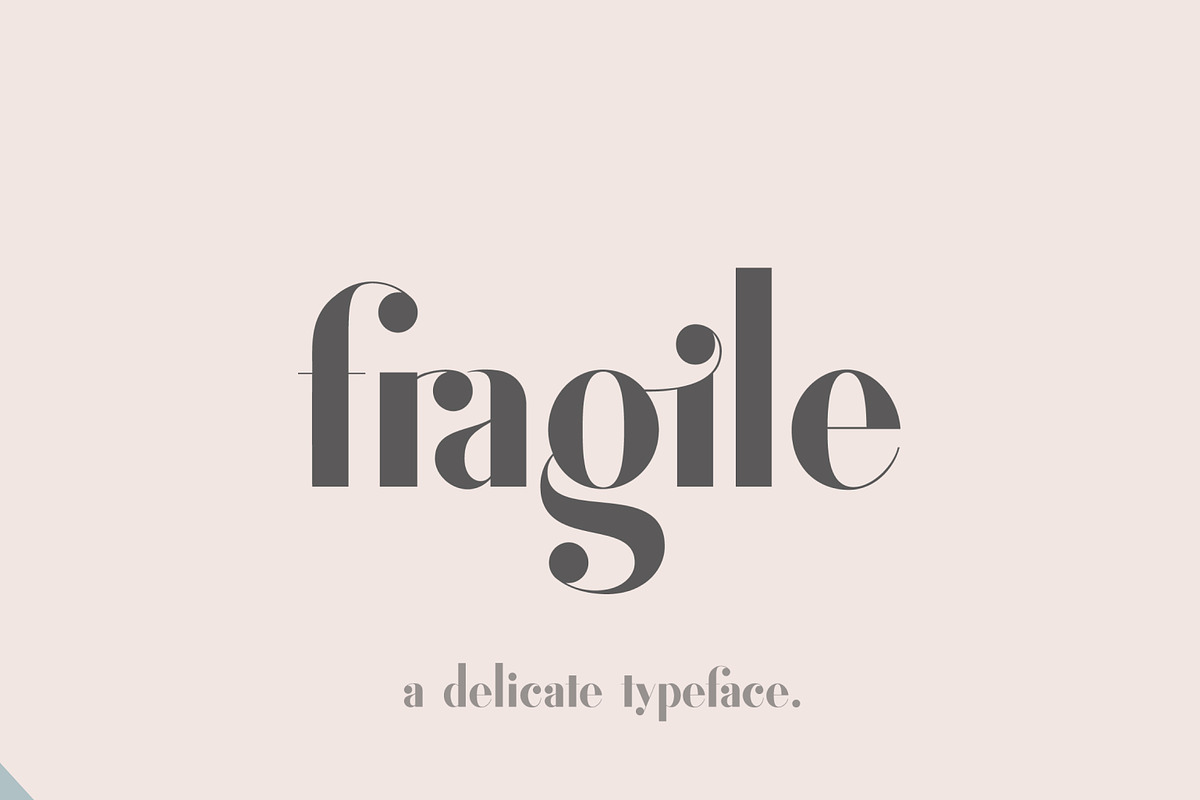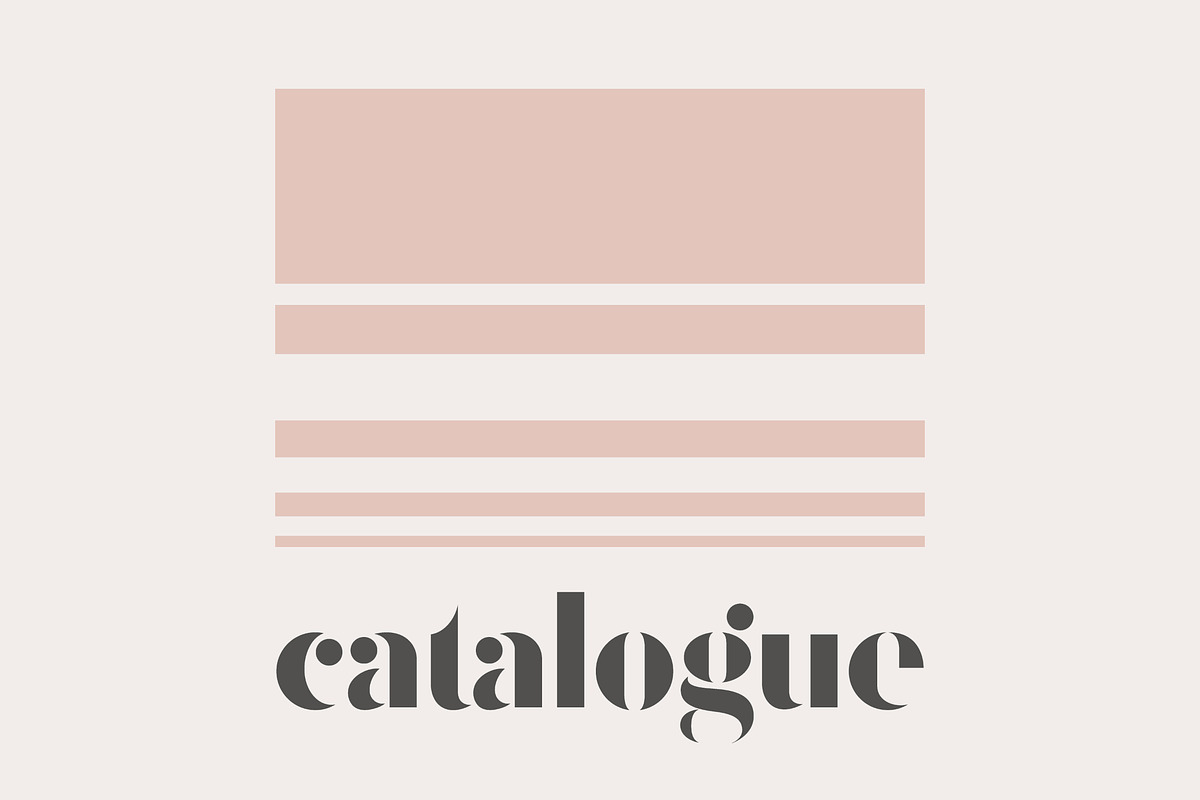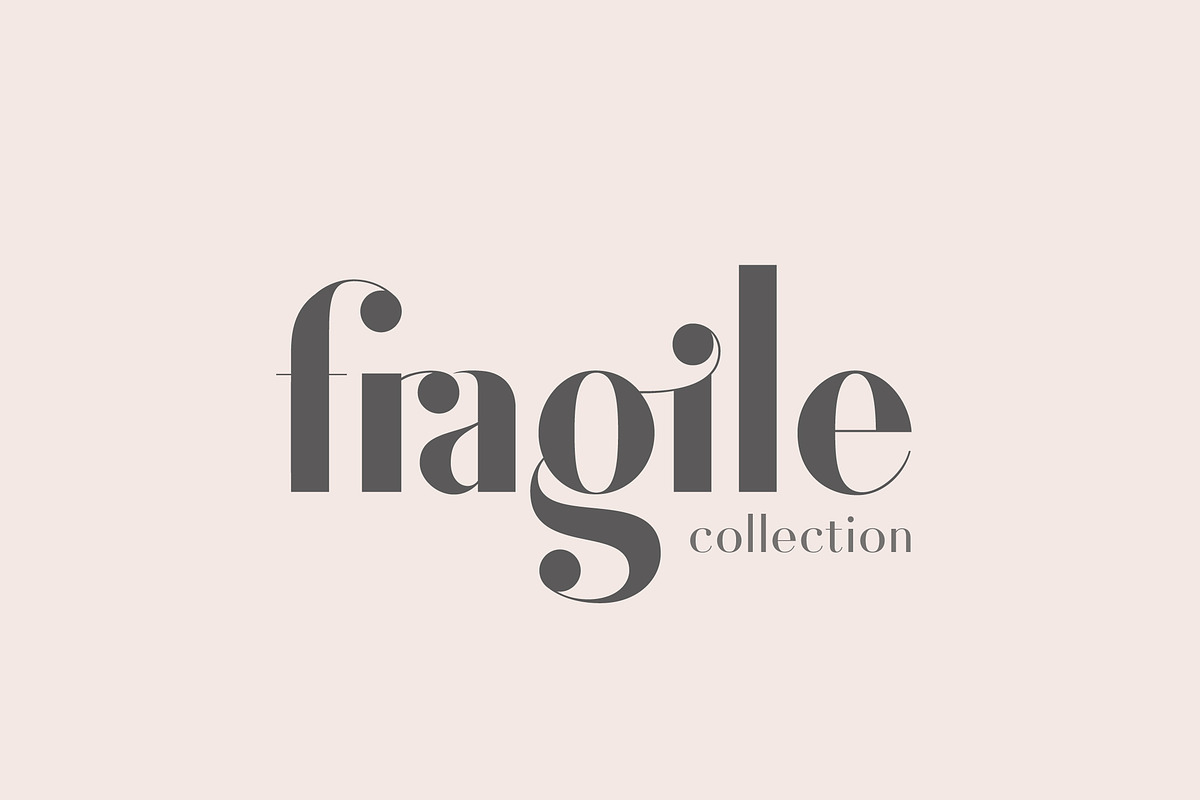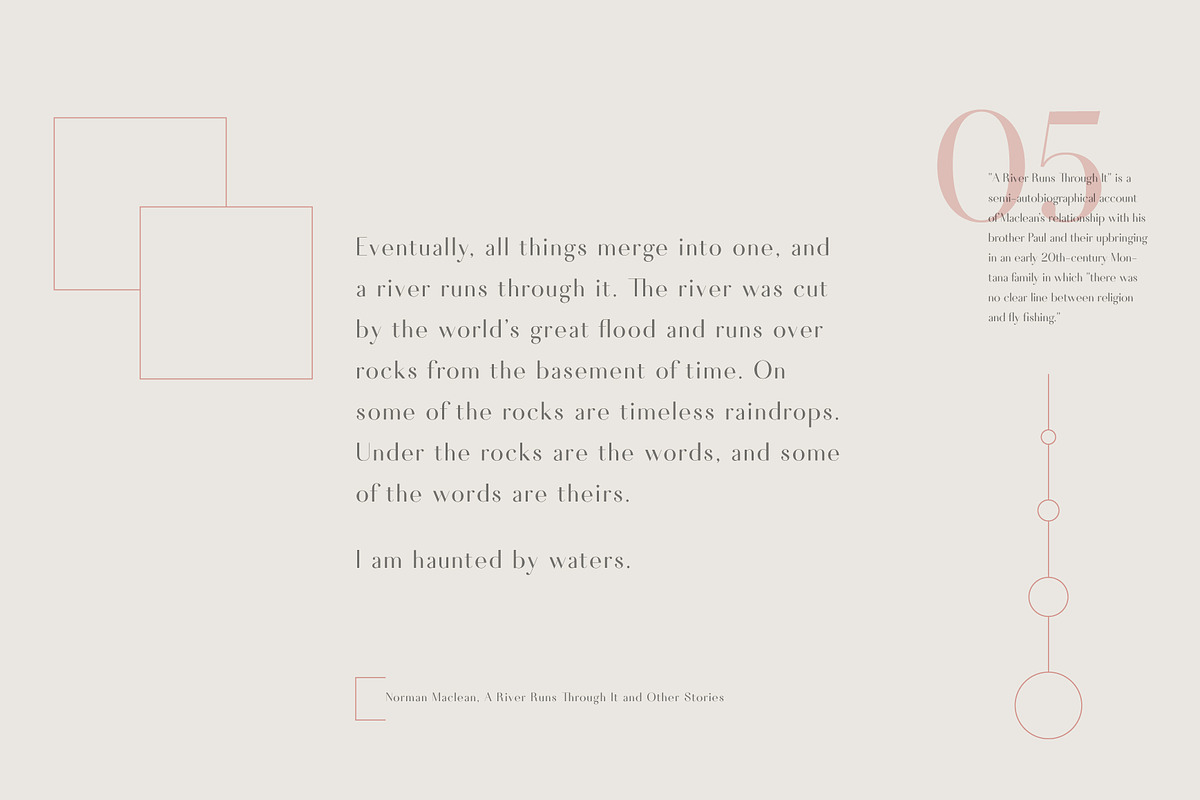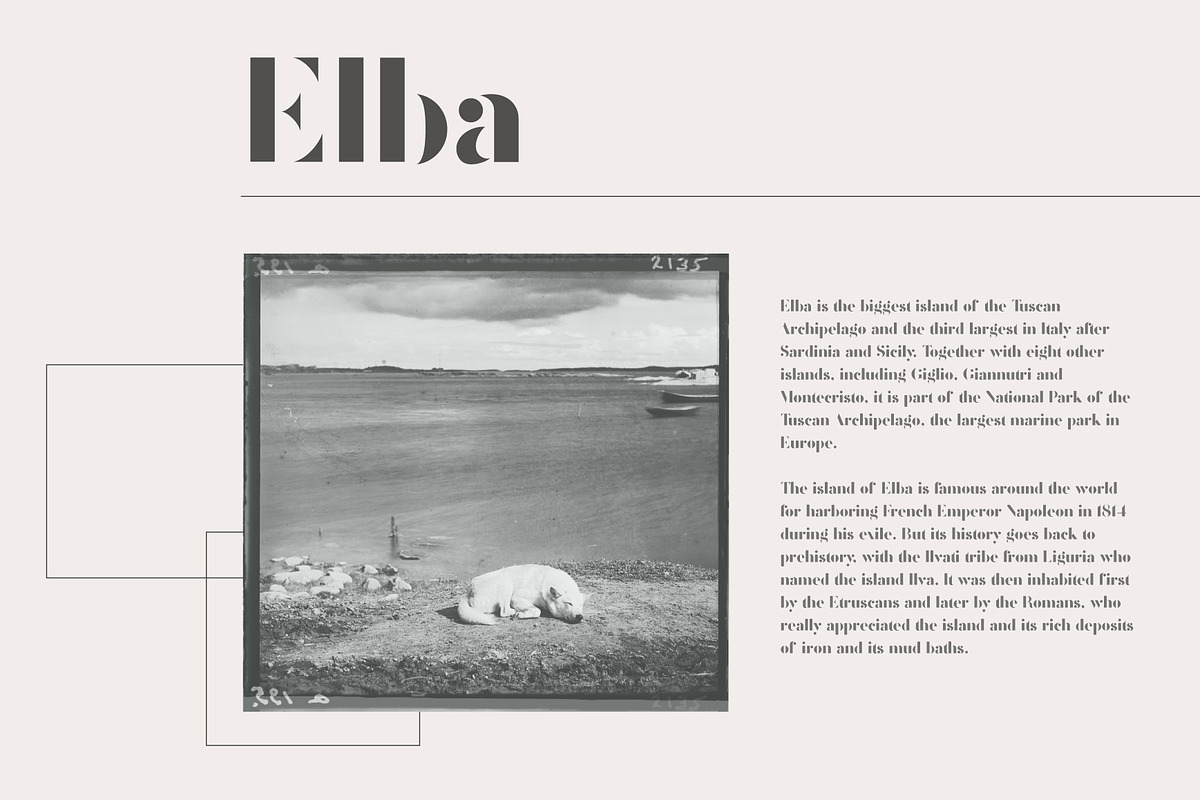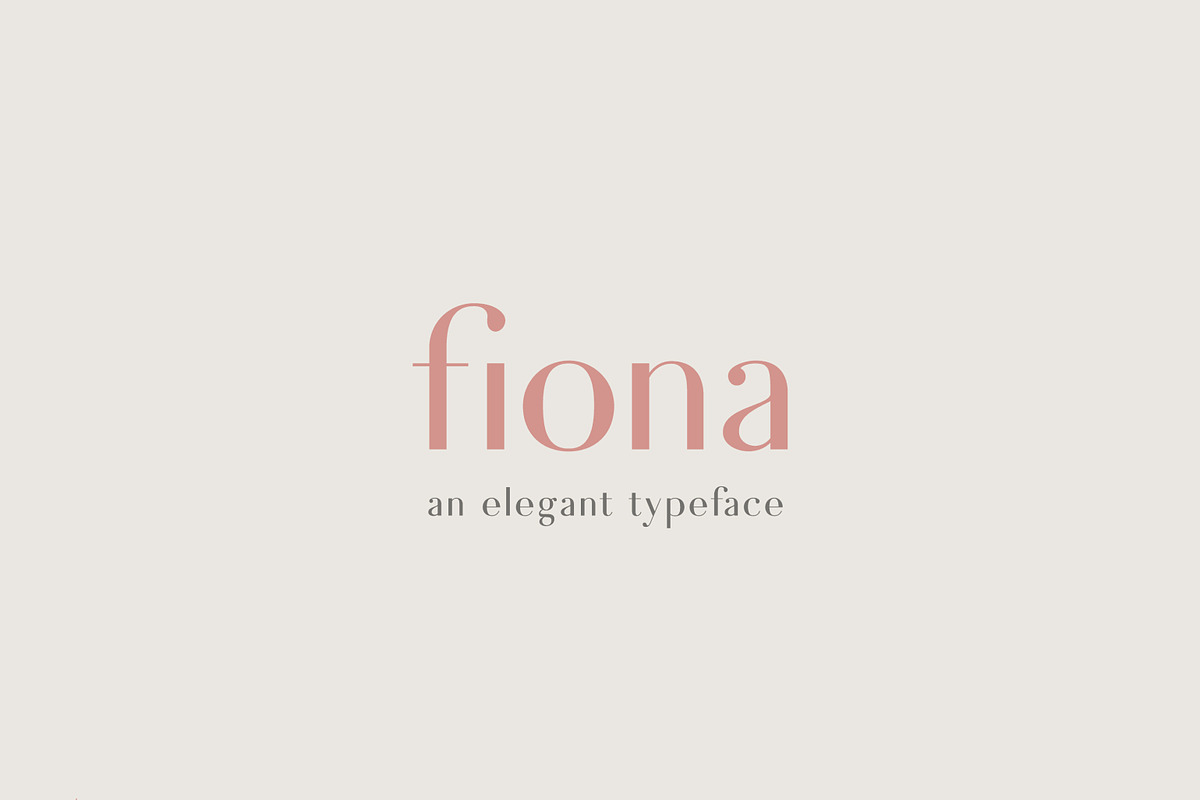
Fragile Collection (Font Bundle)
Fragile・Fiona ・Catalogue
Create gorgeous, elegant graphics with the Fragile Collection, a collection of three unique fonts, each with their own personality, based on classic letterforms and designed for use in headlines, invitations, logos, layouts, and more. With three distinct products, you can always find the perfect pairing or individual font for your next project.
Fragile - a delicate typeface with gorgeous ligatures for creating beautiful graphics.
Fiona - an elegant typeface with a sleek look and a vintage flair.
Catalogue - a bold, minimal typeface designed for use in headlines, logos, and quotes.